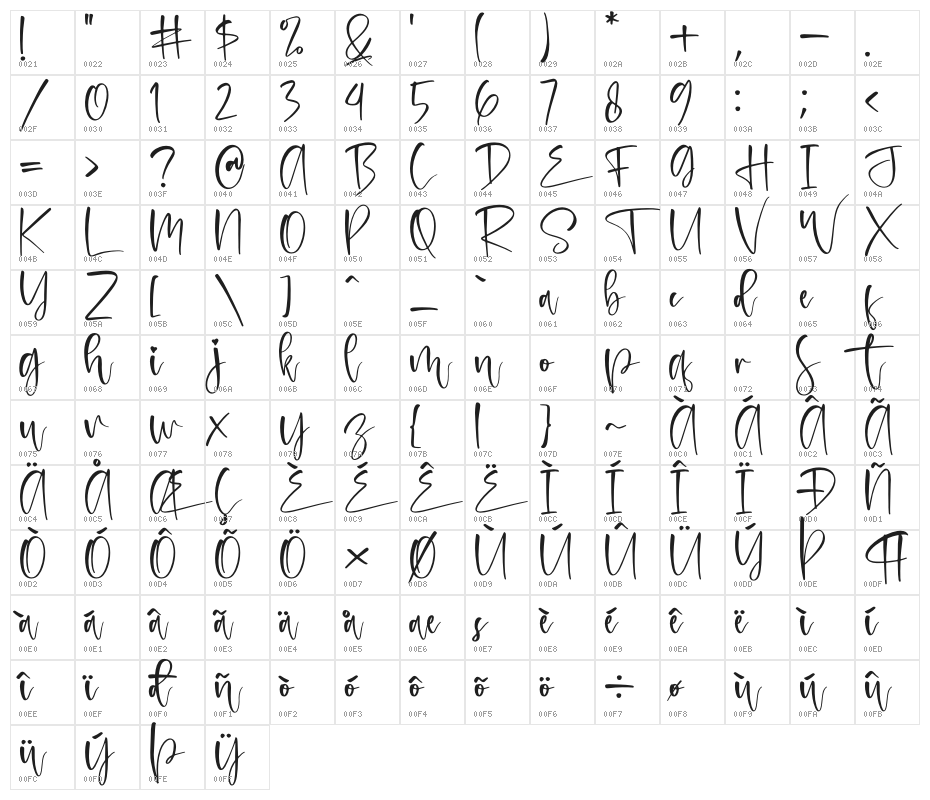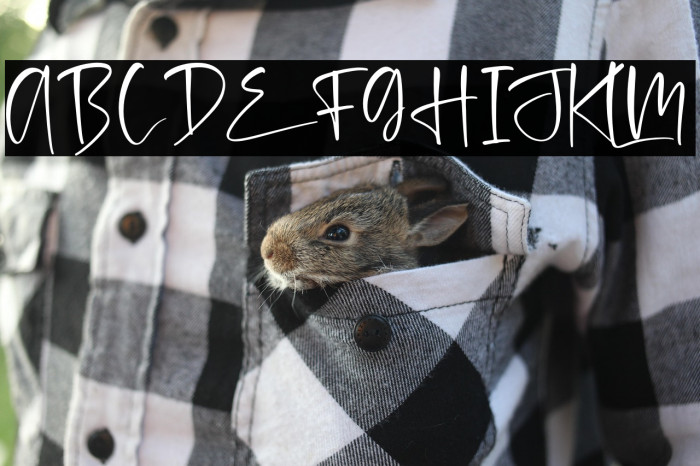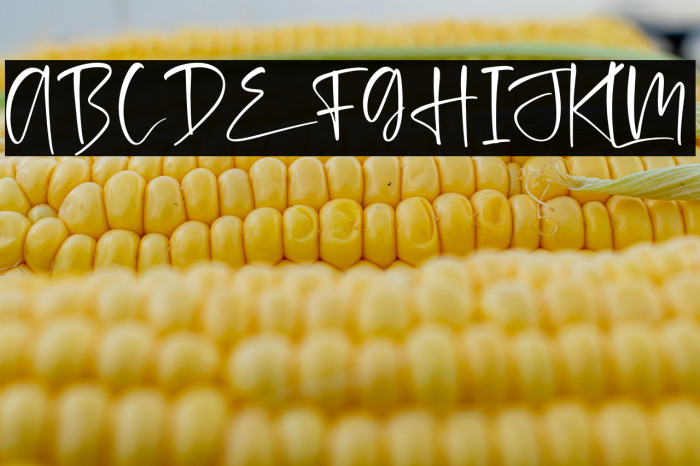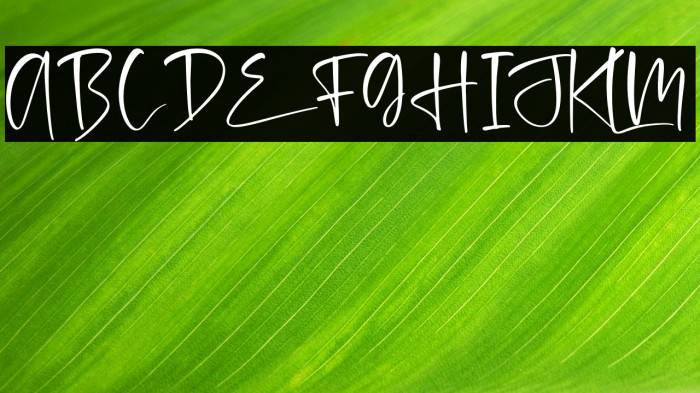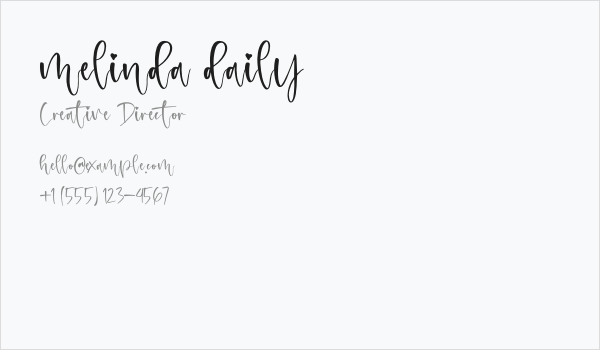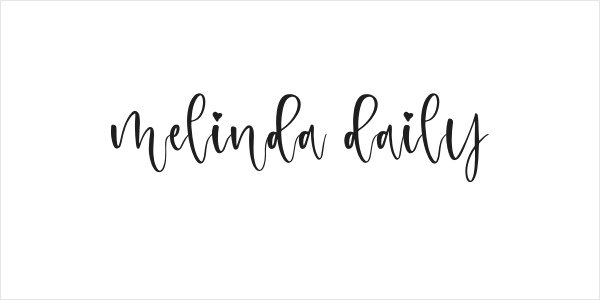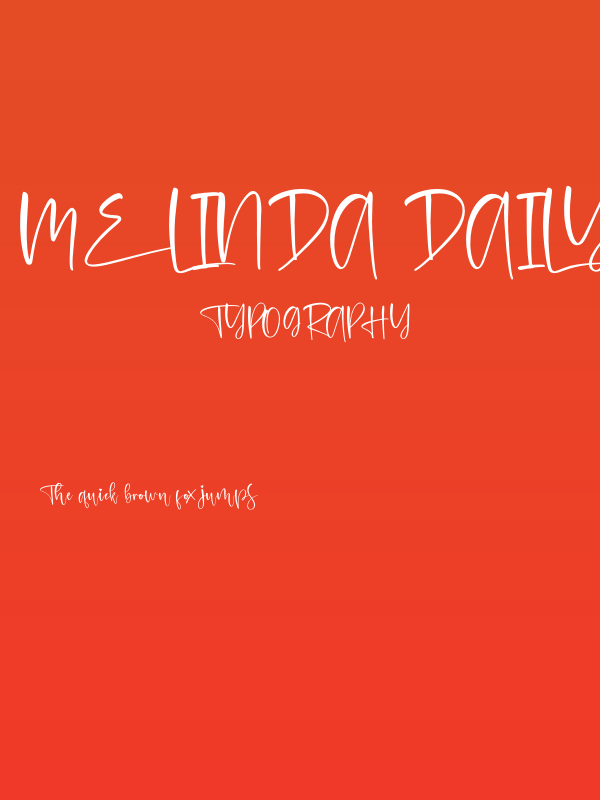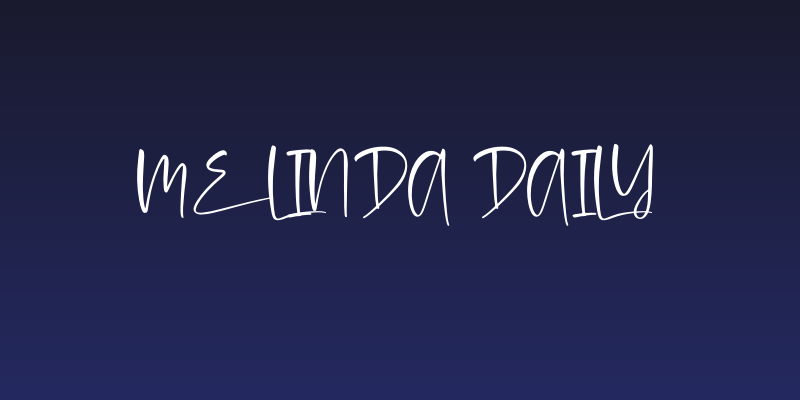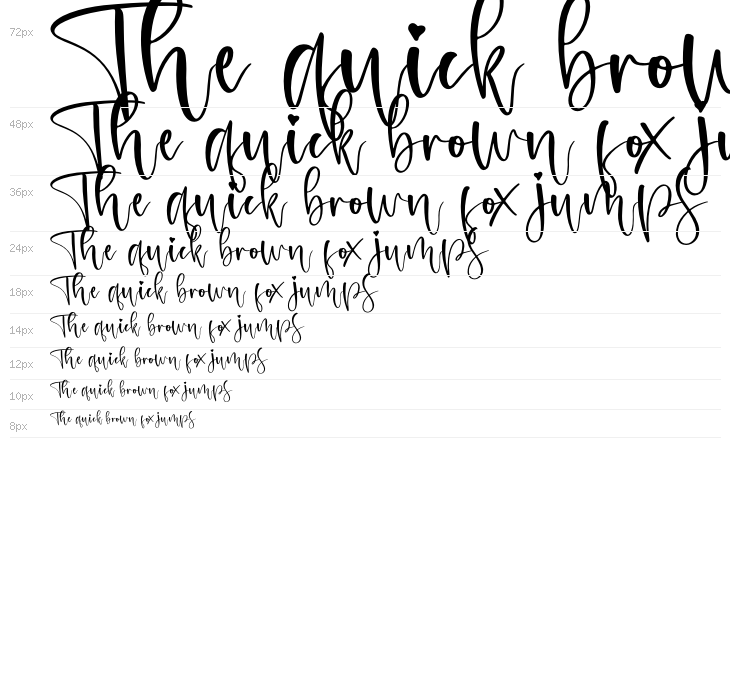
melinda daily Font
melinda daily Description
This font exudes a playful and whimsical charm, characterized by its handwritten style with a touch of elegance. The letters are fluid and dynamic, with varying stroke widths that add a lively rhythm to the text. Uppercase letters are bold and slightly exaggerated, while lowercase letters maintain a consistent flow with occasional decorative elements like hearts. The numbers are equally expressive, maintaining the same playful style. Special characters are creatively integrated, enhancing the font's overall appeal. This font is perfect for projects that require a personal and artistic touch.
| Proposed Projects | Ideal for greeting cards, invitations, personal branding, and creative projects. |